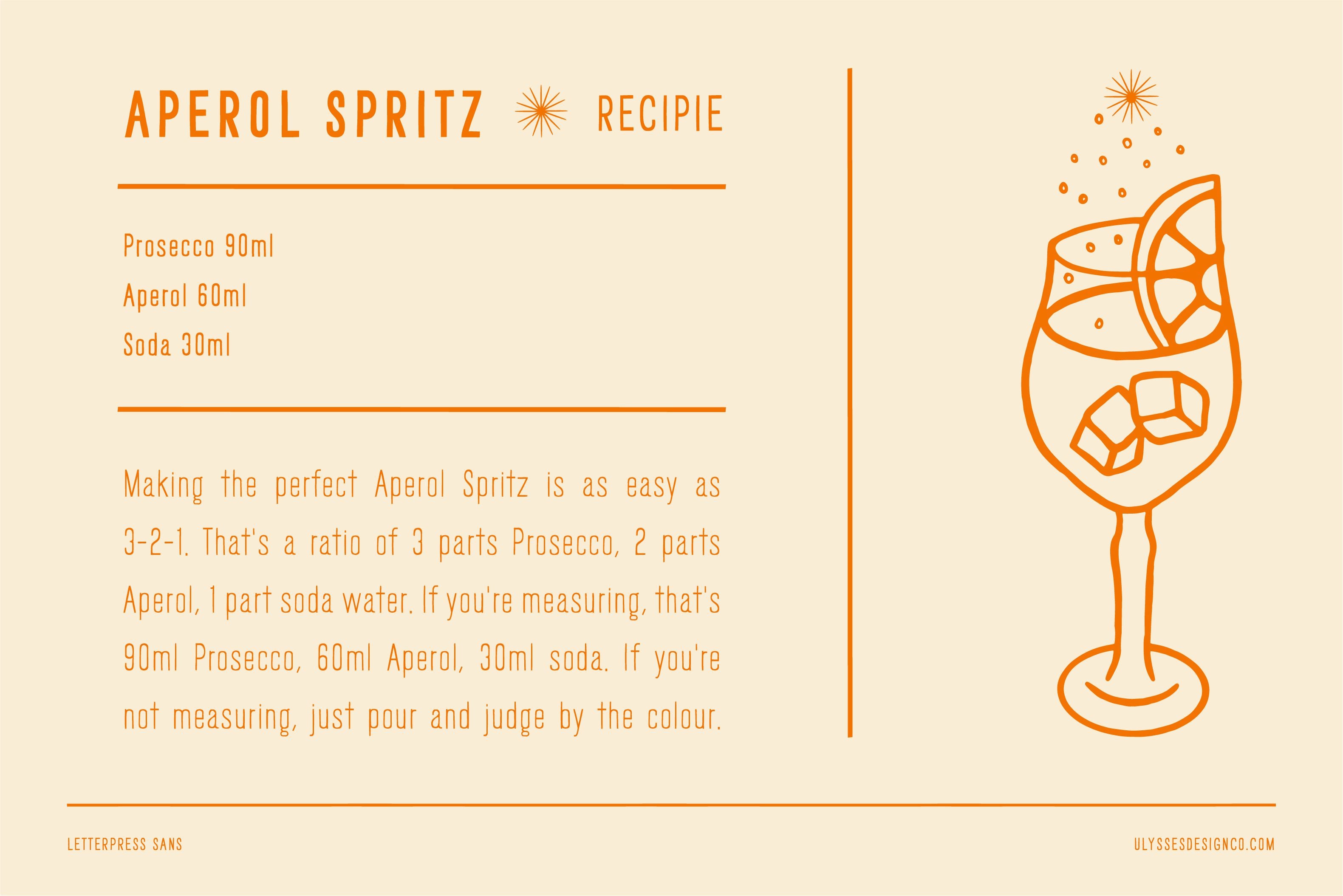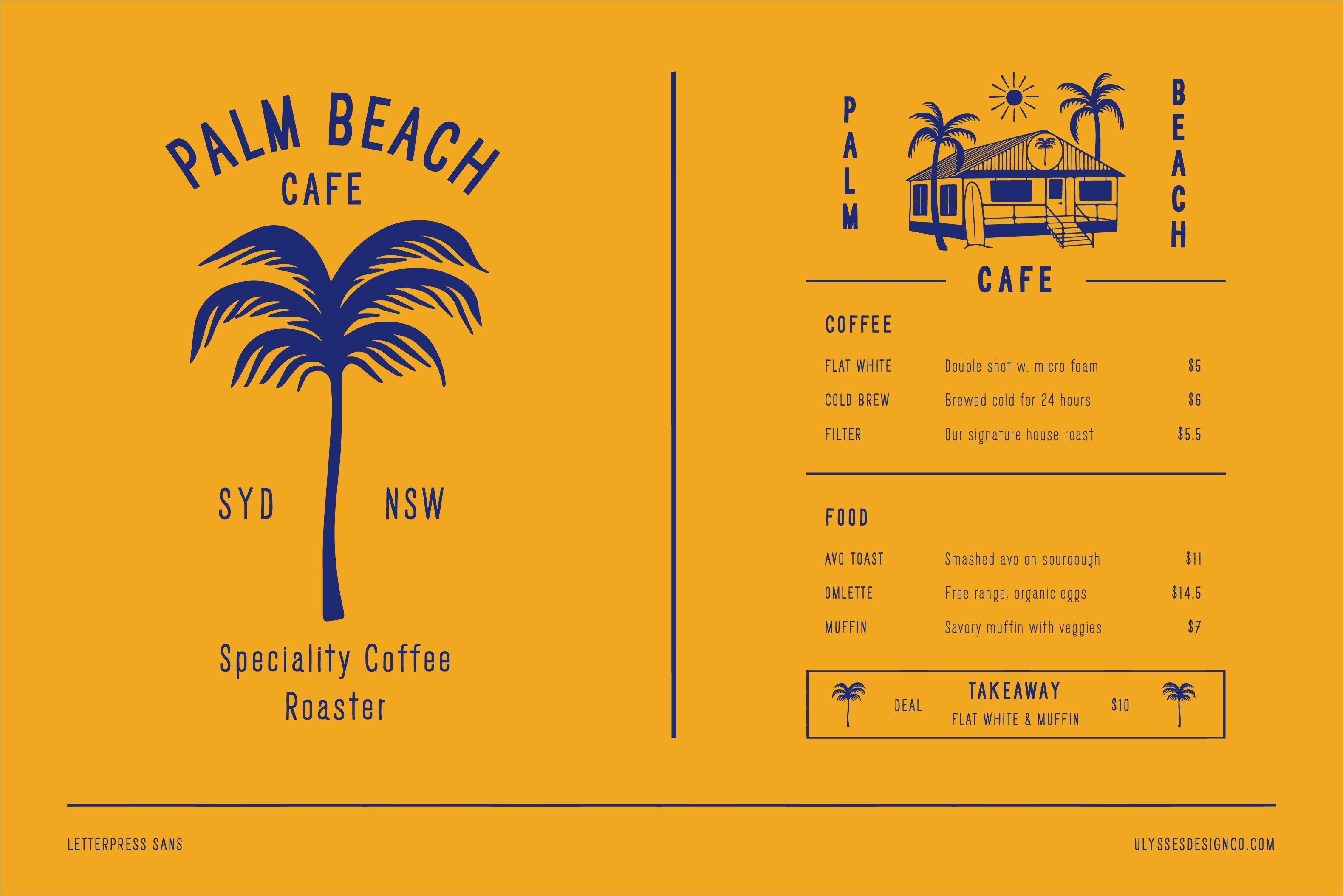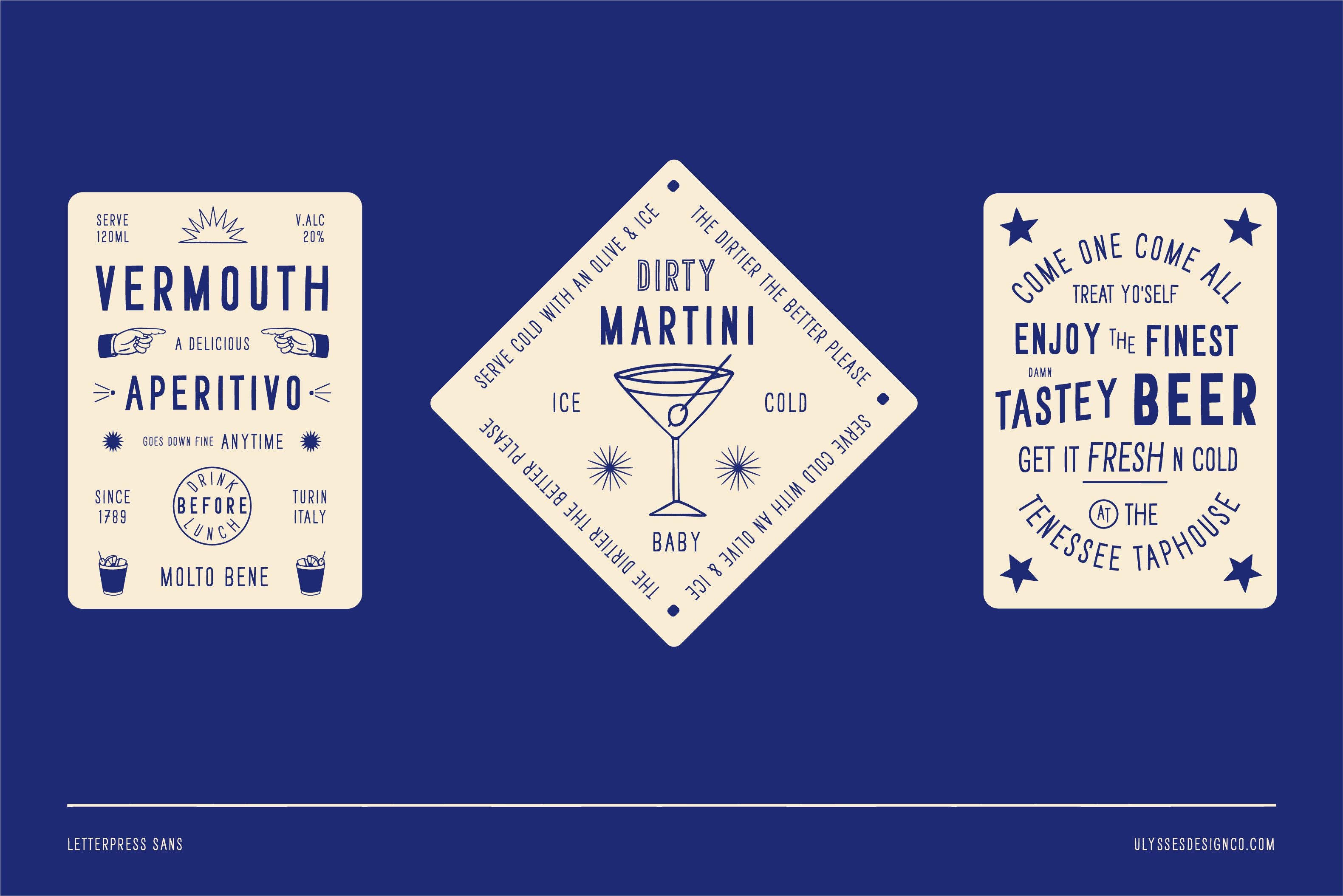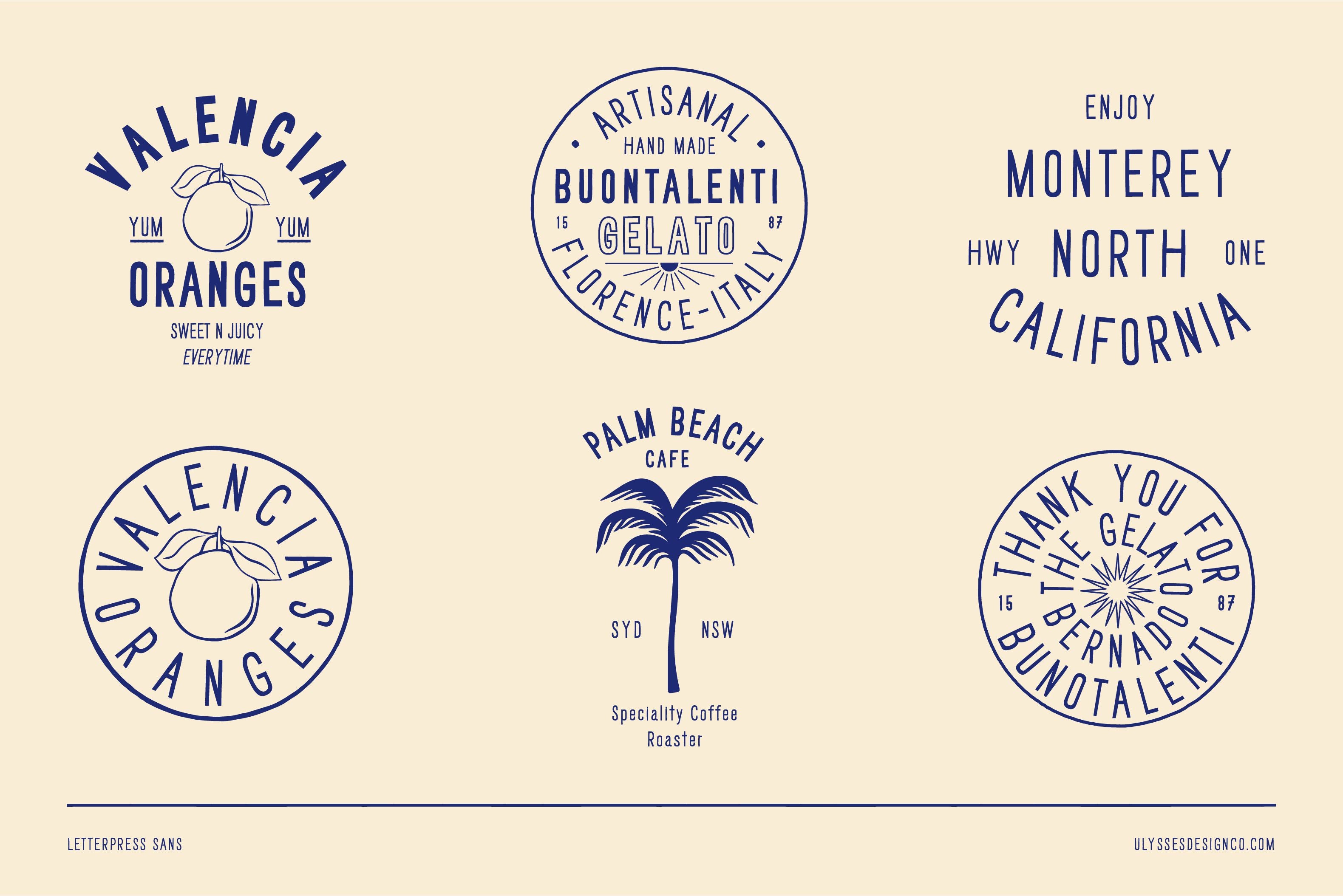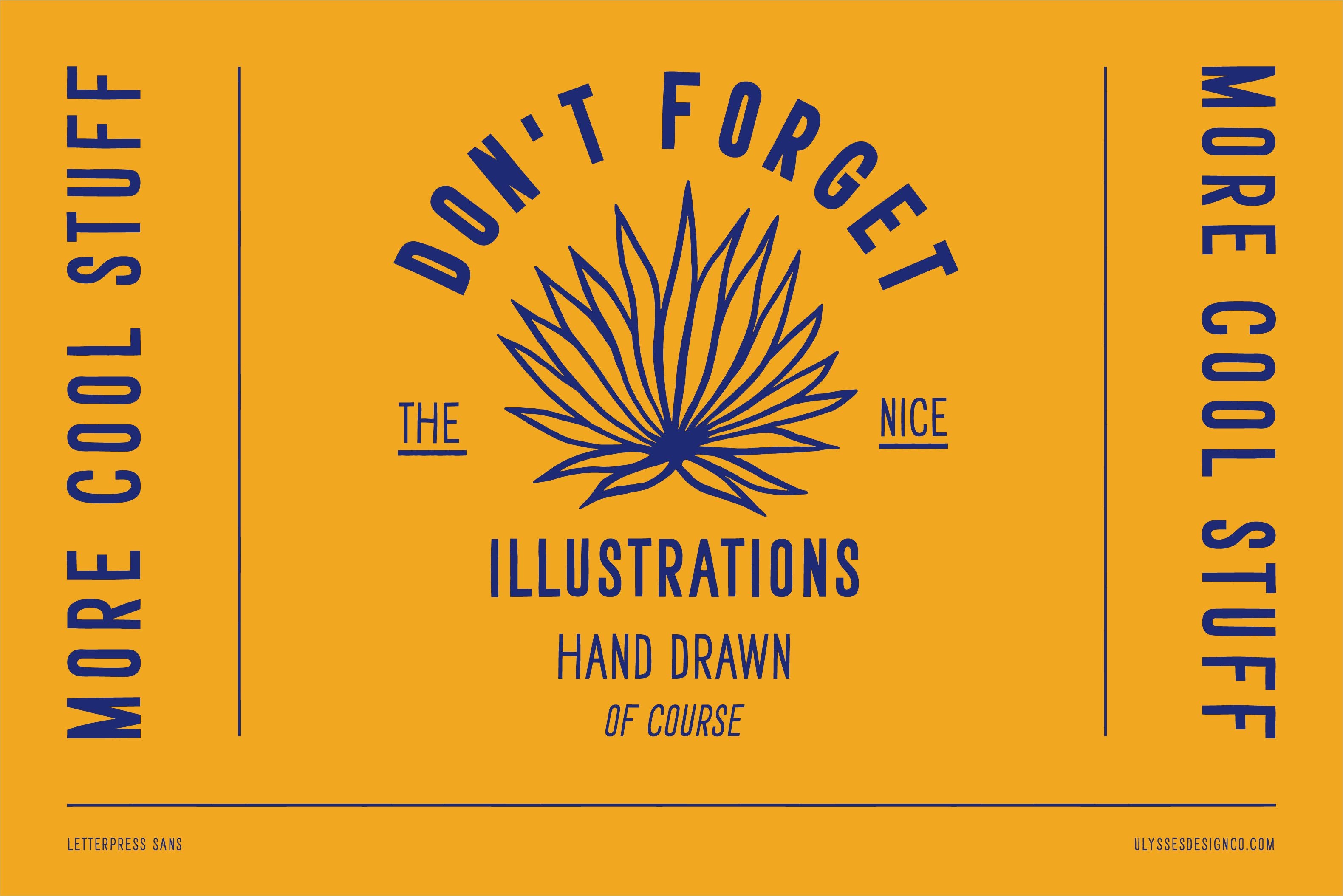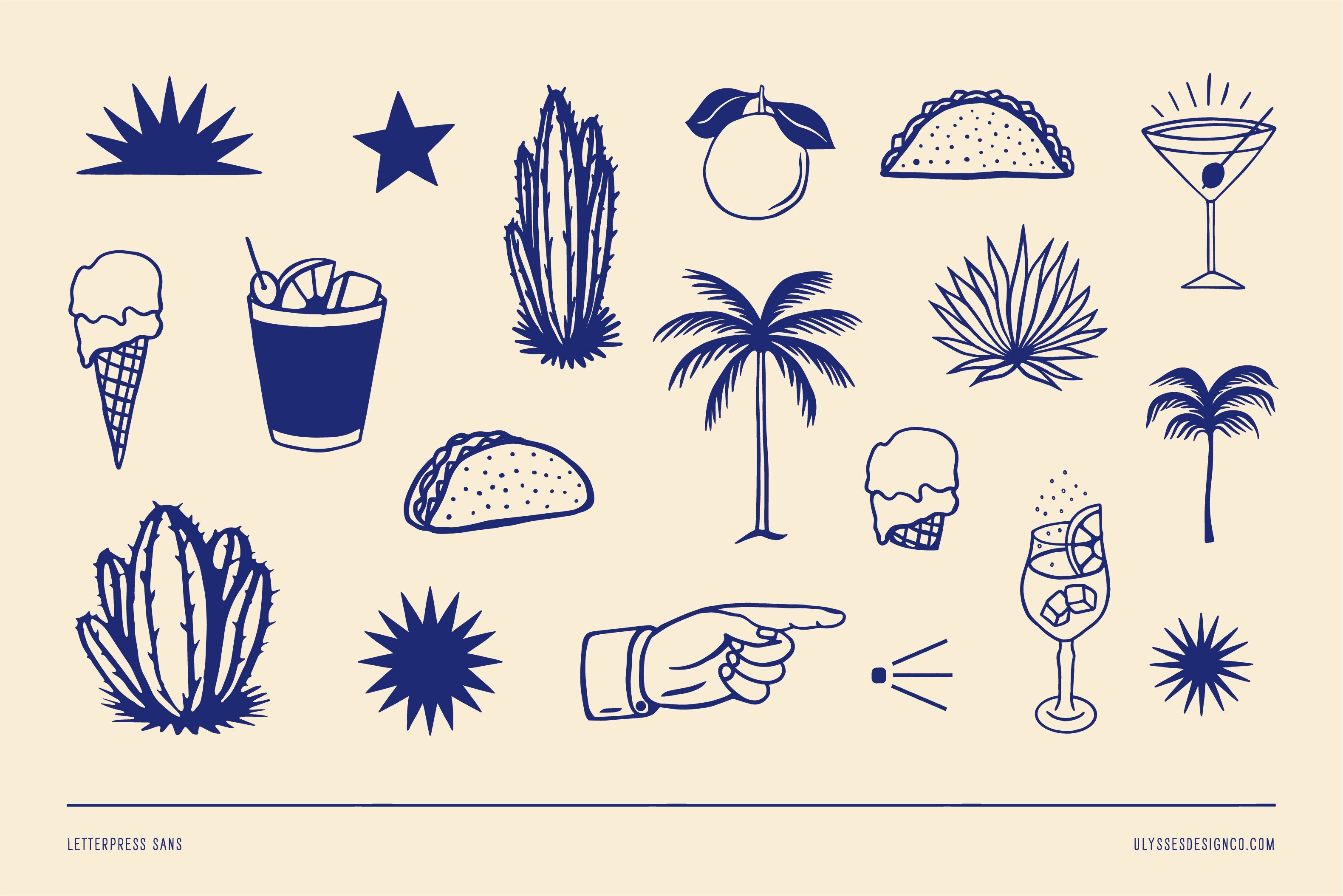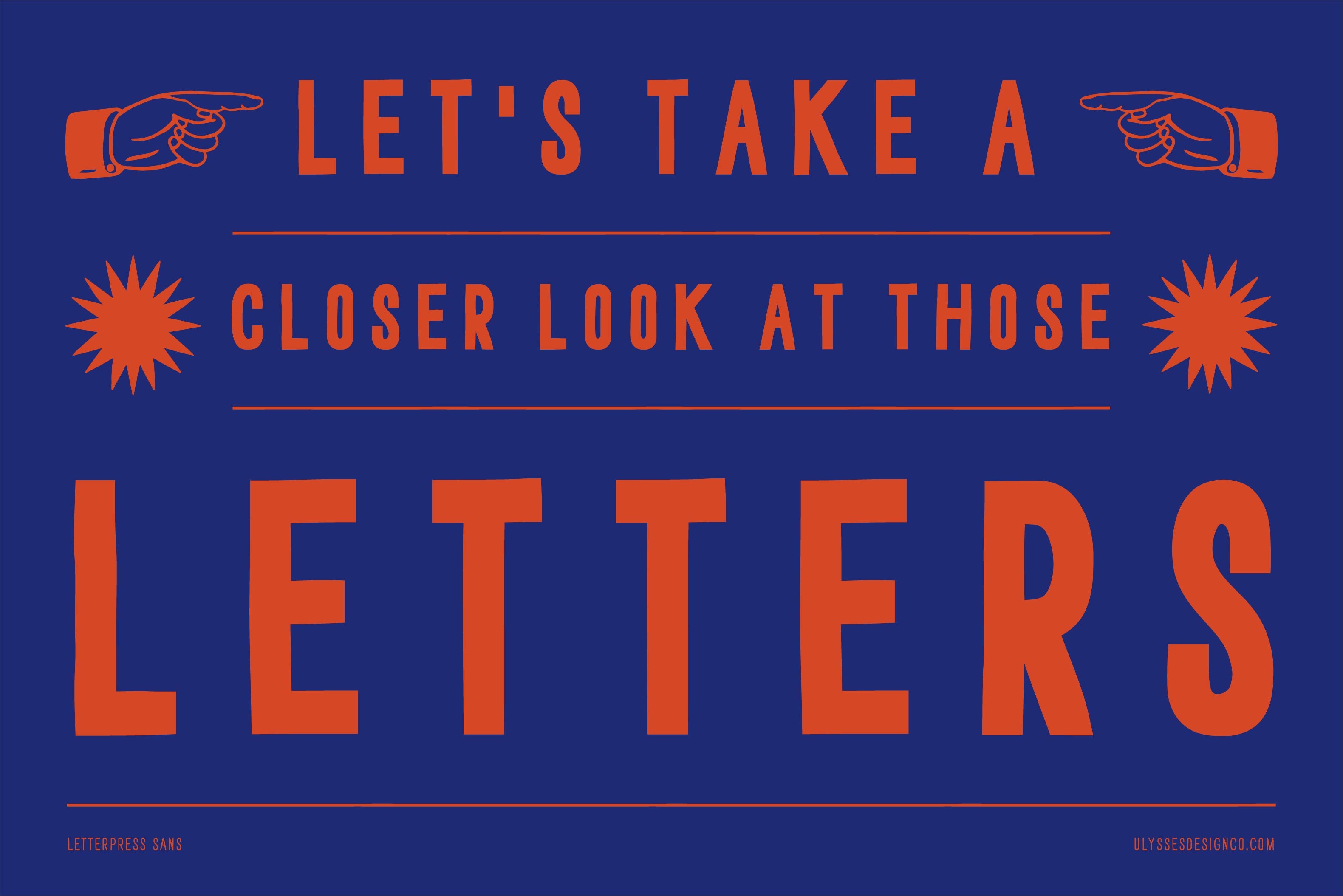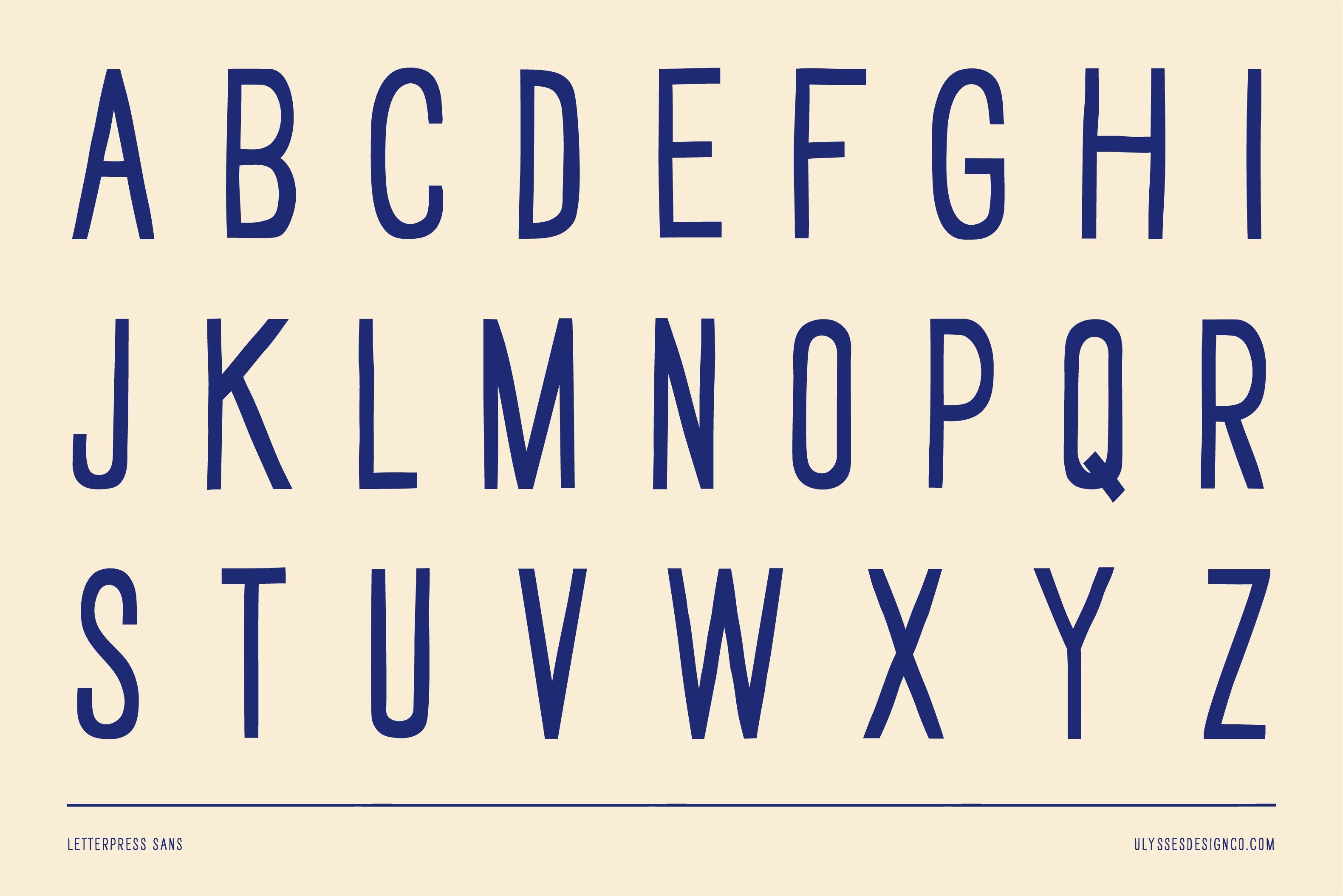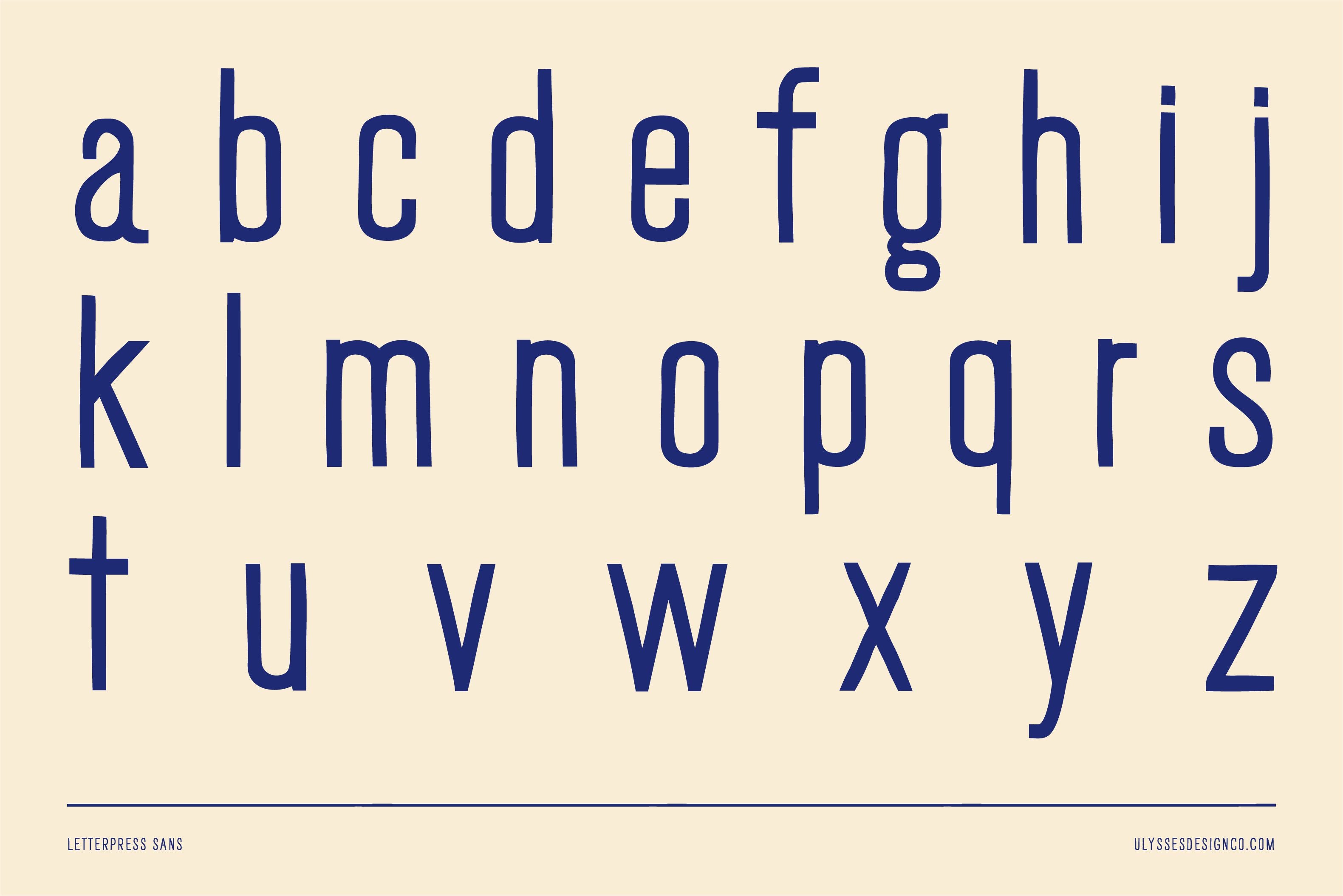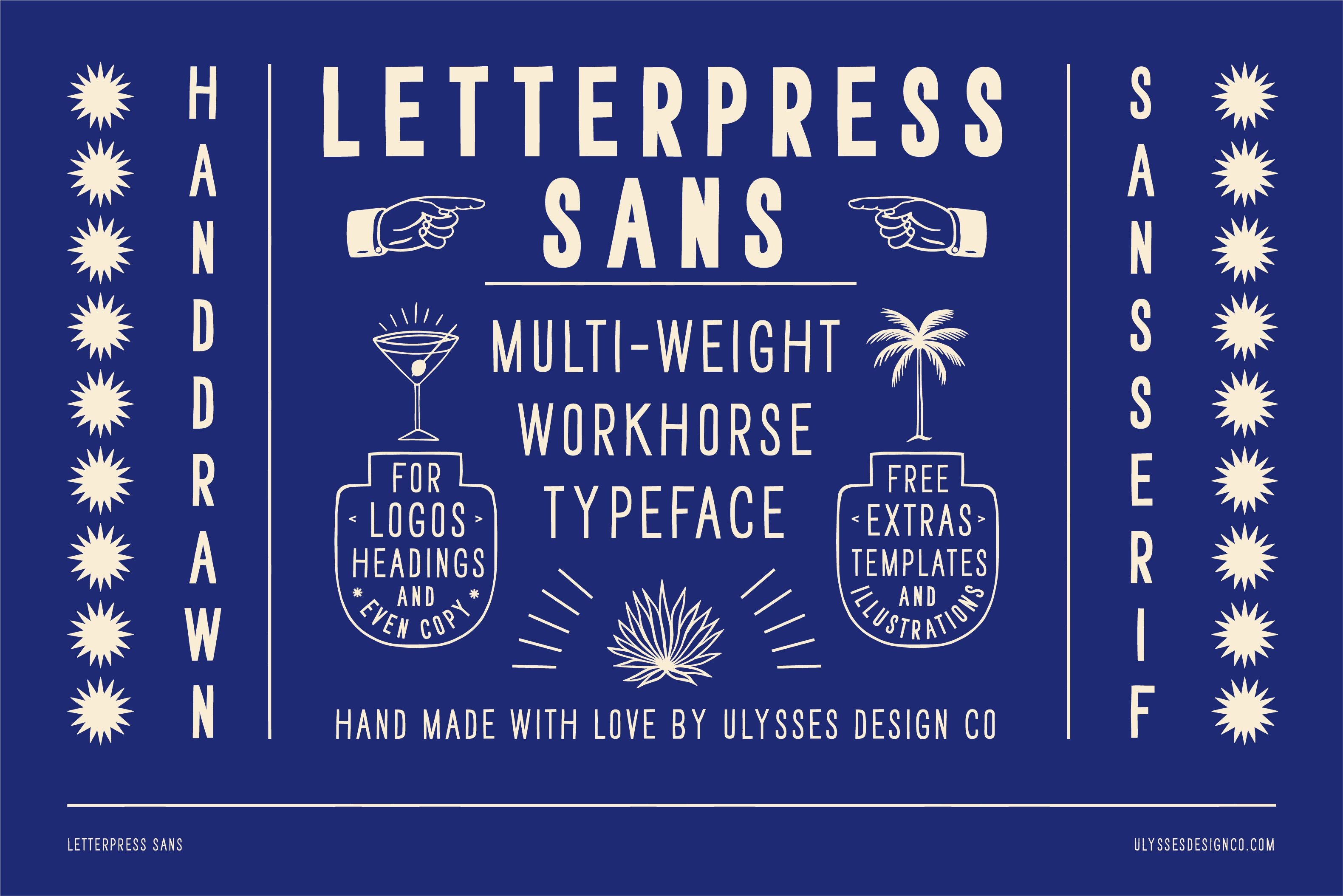
Letterpress Sans Font Family
The Letterpress Sans Font Family is a hand-drawn, vintage, sans serif typeface that features four weights, illustrations, and logo templates. This condensed font is designed with a letterpress-inspired style, suitable for branding, headings, and copy.
Ideal for vintage-inspired graphic design and branding projects. Perfect for posters, logos, and headings, ensuring a unique and authentic touch to your creative work.